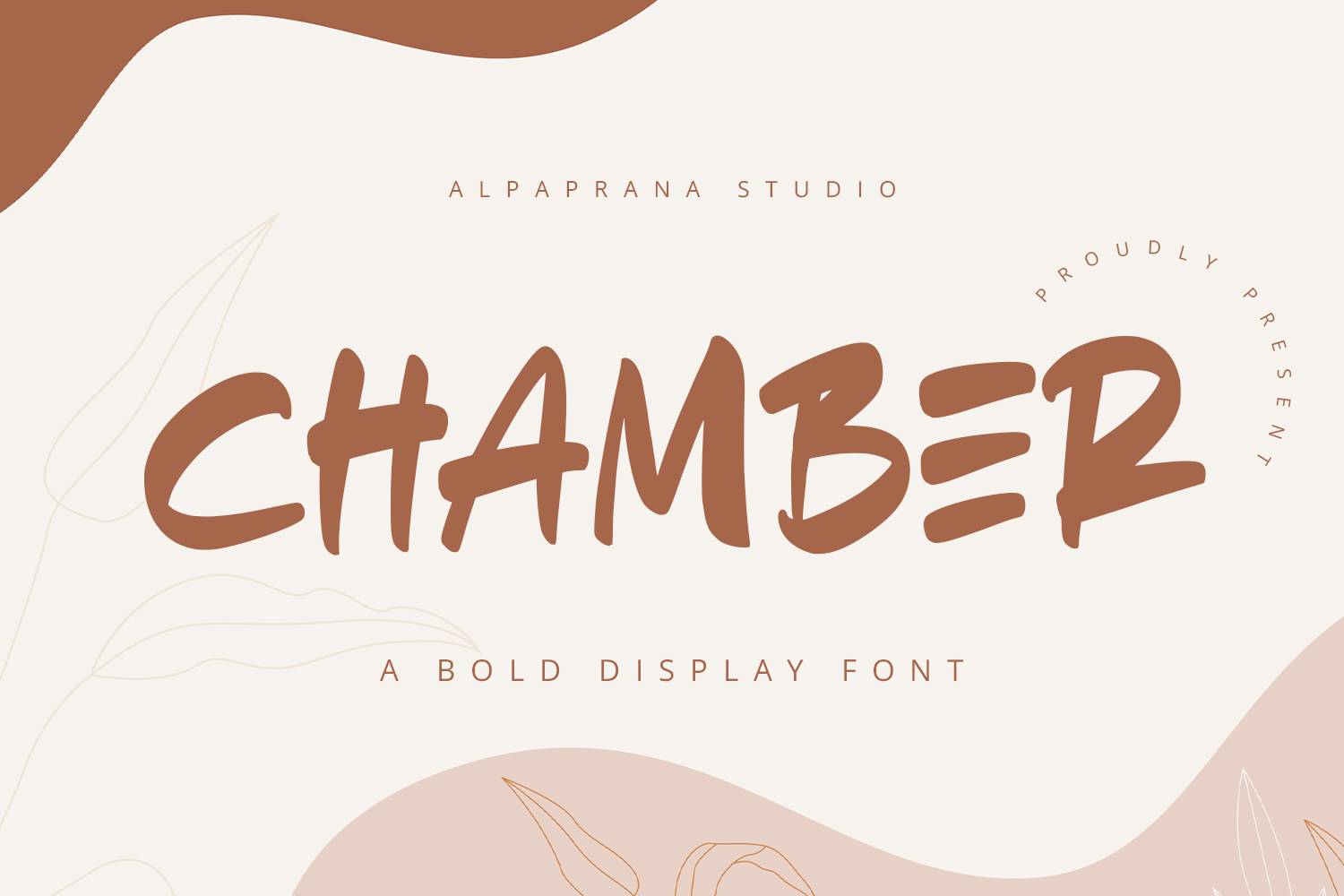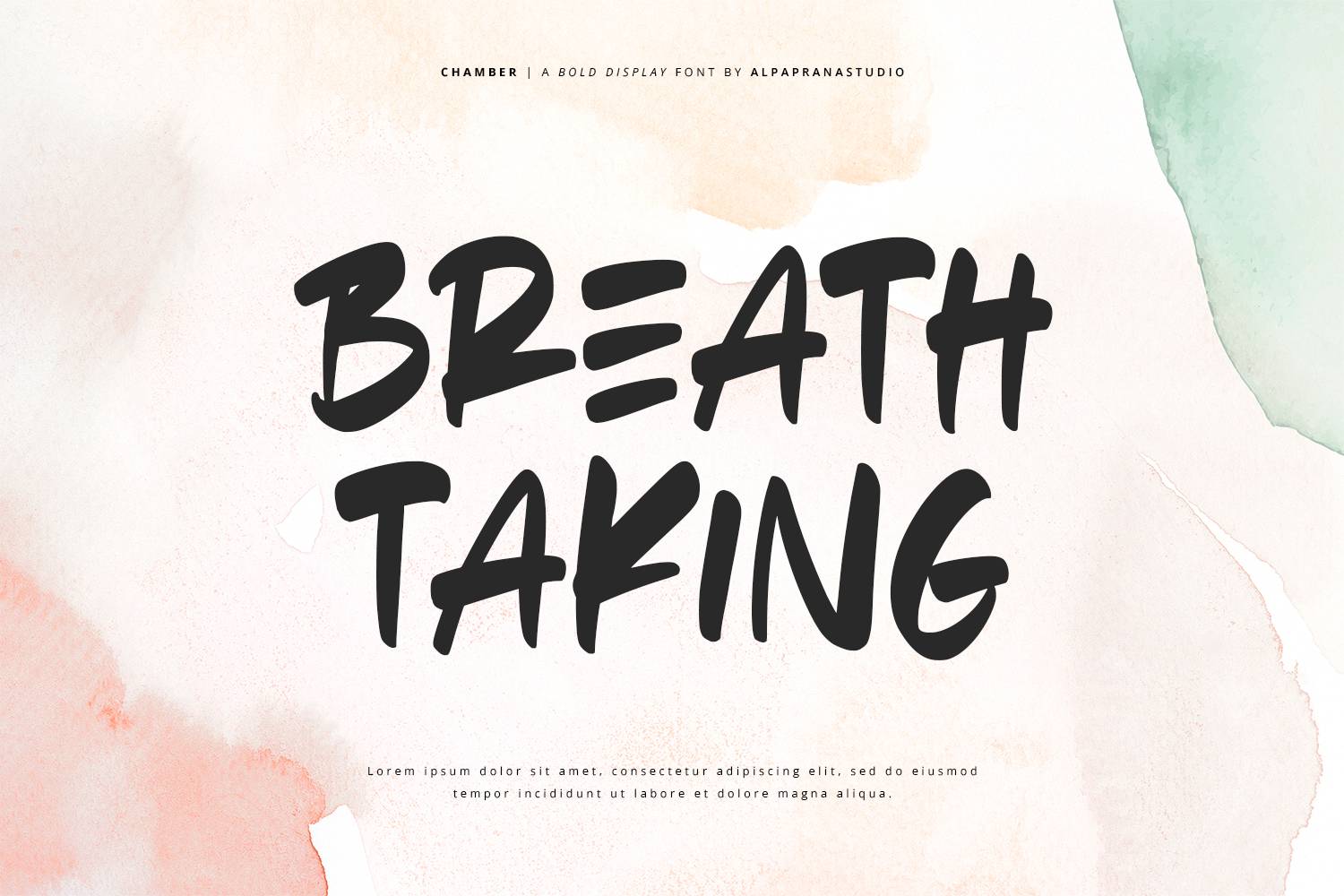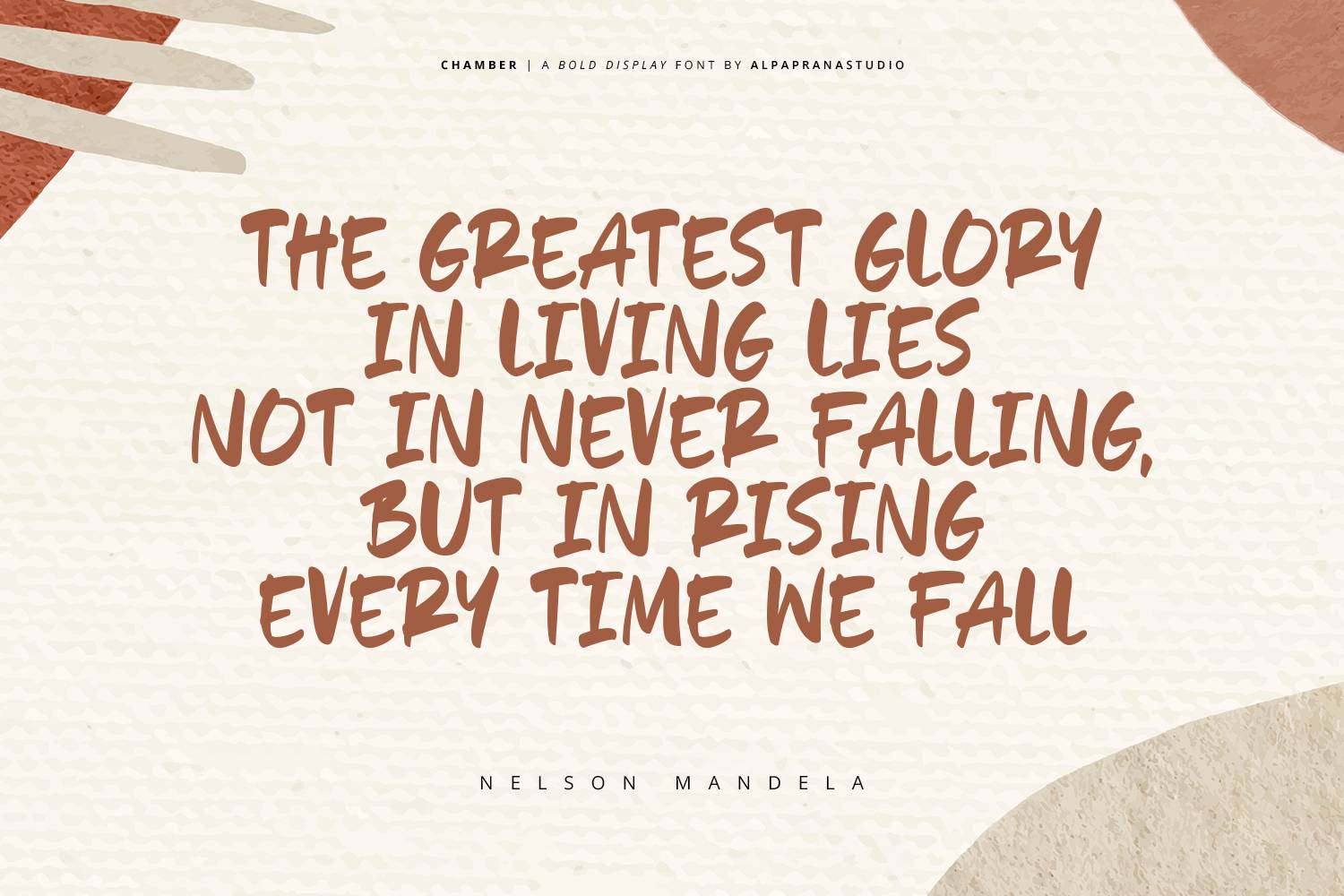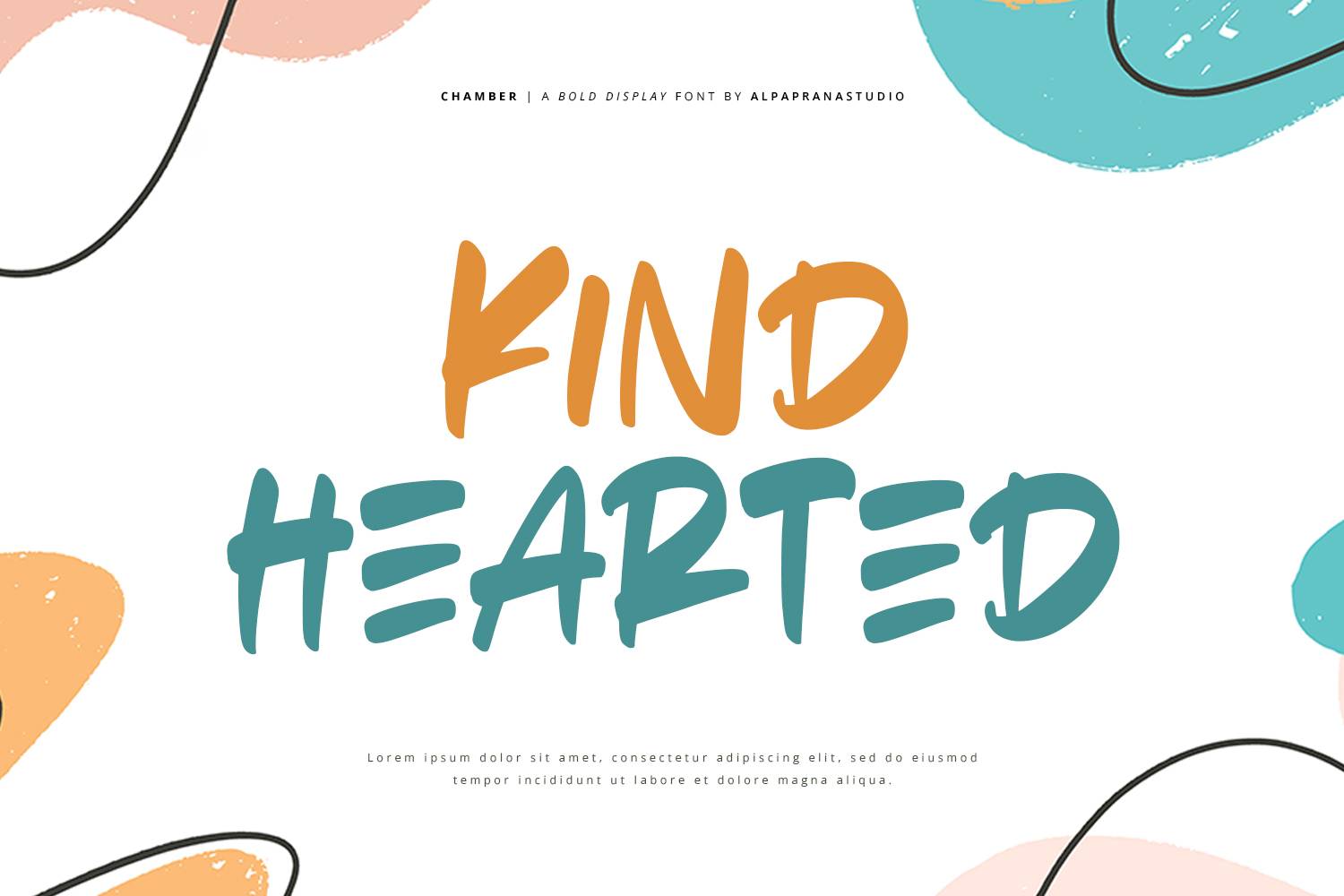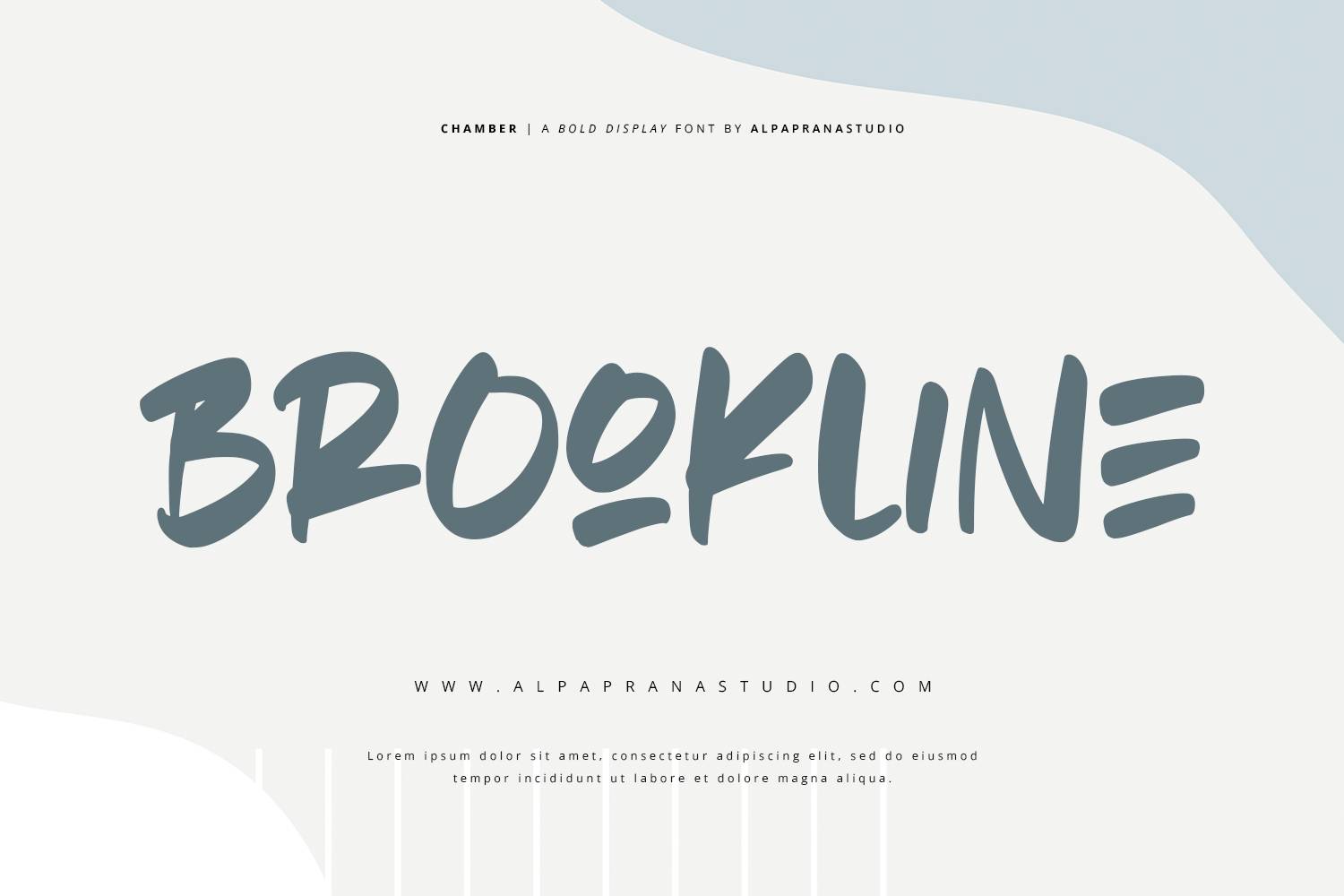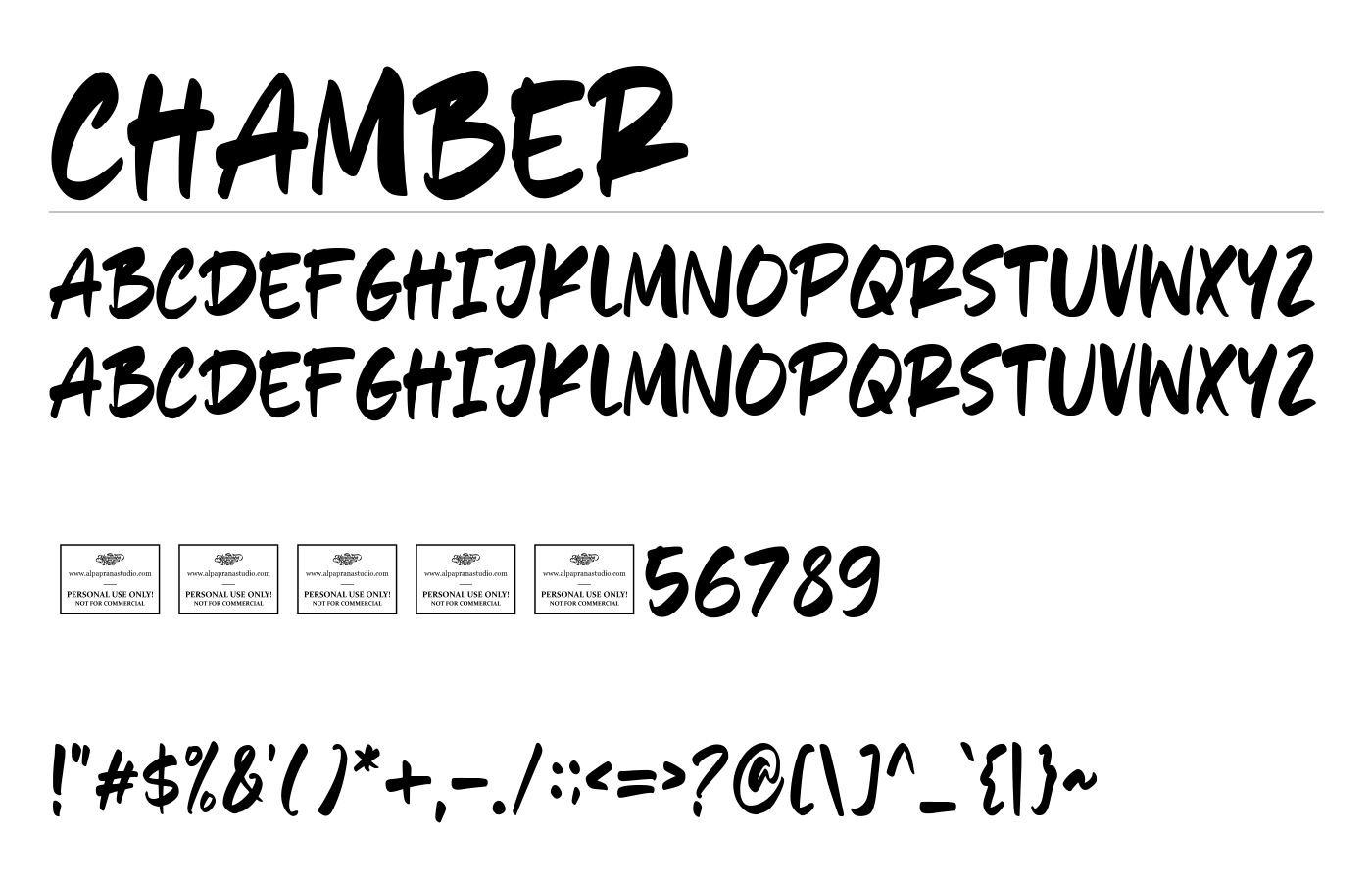
Chamber is a bold, playful handwritten font that exudes energy and personality with its thick, brush-like strokes and slightly irregular shapes. Its lively, casual style is perfect for creative projects, branding, and headlines that need a friendly and approachable feel. This font works well in designs seeking a fun and informal touch without sacrificing readability.
Chamber Font
About Chamber Font